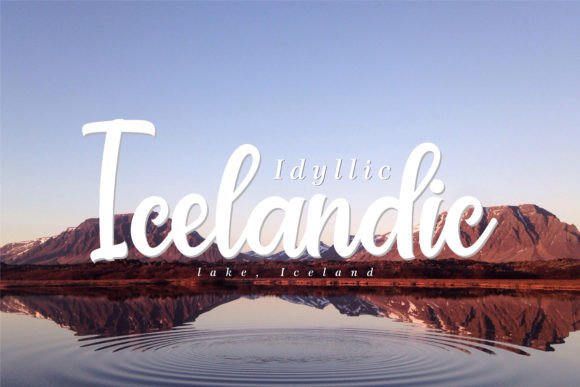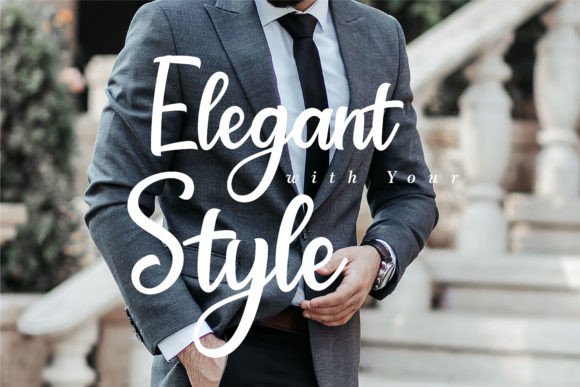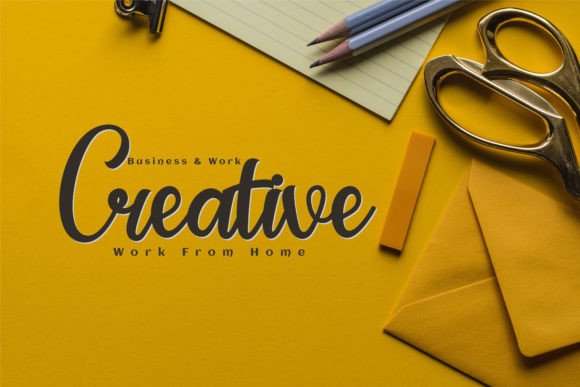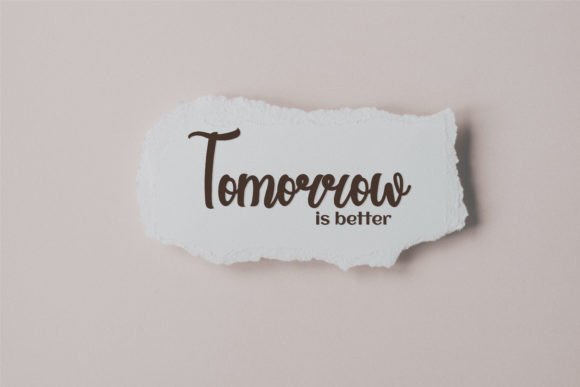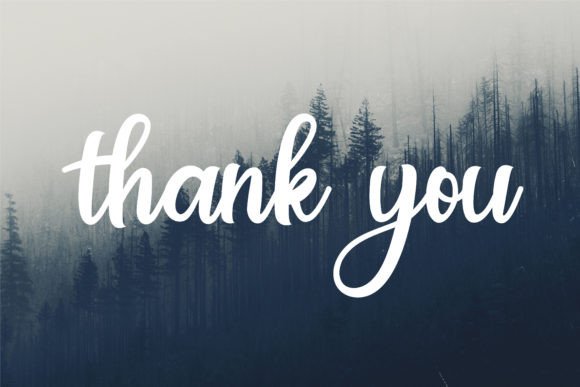
Introducing Essence Font: Elevate Your Designs with Elegance and Sophistication
Are you a designer or crafter looking for a font that can add a touch of elegance and sophistication to your projects? Look no further than Essence Font, a beautiful handwritten font that is perfect for a wide range of applications. In this article, we’ll explore the features and benefits of Essence Font, and show you how it can elevate your designs to the next level.
What is Essence Font?
Essence Font is a stunning handwritten font that is designed to make your designs stand out. Its unique and elegant style makes it perfect for use in a variety of projects, from wall displays and wedding invitations to social media posts and product packaging. With its flowing lines and delicate curves, Essence Font is sure to add a touch of sophistication and refinement to any design.
Features of Essence Font
So, what makes Essence Font so special? Here are just a few of its key features:
• Handwritten style: Essence Font is a genuine handwritten font, giving it a personal and unique touch that sets it apart from more traditional fonts.
• Elegant and sophisticated: With its flowing lines and delicate curves, Essence Font is the perfect choice for designers who want to add a touch of elegance and sophistication to their projects.
• Versatile: Essence Font can be used in a wide range of projects, from wall displays and wedding invitations to social media posts and product packaging.
• Easy to read: Despite its elegant style, Essence Font is still easy to read, making it perfect for use in body text as well as headings and titles.
Uses for Essence Font
So, what can you use Essence Font for? The possibilities are endless! Here are just a few ideas to get you started:
• Wall displays: Use Essence Font to create stunning wall displays that are sure to grab attention.
• Wedding invitations: Add a touch of elegance and sophistication to your wedding invitations with Essence Font.
• Social media posts: Use Essence Font to create eye-catching social media posts that will help your brand stand out.
• Logos: Create a unique and memorable logo for your brand with Essence Font.
• Advertisements: Use Essence Font to create eye-catching advertisements that will grab attention and drive results.
• Product packaging: Add a touch of elegance and sophistication to your product packaging with Essence Font.
• Product designs: Use Essence Font to create stunning product designs that will help your products stand out.
• Labels: Create beautiful labels with Essence Font that will add a touch of elegance to your products.
• Photography: Use Essence Font to create stunning watermarks that will protect your photos and add a touch of elegance.
• Invitations: Create beautiful invitations with Essence Font that will set the tone for your event.
• Stationery: Use Essence Font to create stunning stationery that will make your brand stand out.
Why Choose Essence Font?
So, why should you choose Essence Font for your next project? Here are just a few reasons:
• Unique and elegant style: Essence Font has a unique and elegant style that will set your designs apart from the rest.
• Versatile: Essence Font can be used in a wide range of projects, making it a great addition to any designer’s toolkit.
• High-quality: Essence Font is a high-quality font that is designed to deliver exceptional results.
Font Name Essence Font
Author Arief Indra Pratama
In conclusion, Essence Font is a beautiful handwritten font that is perfect for designers and crafters who want to add a touch of elegance and sophistication to their projects. With its unique and elegant style, versatility, and ease of use, Essence Font is a great choice for a wide range of applications. Whether you’re creating wall displays, wedding invitations, social media posts, or product packaging, Essence Font is sure to deliver exceptional results. So why wait? Download Essence Font today and start elevating your designs to the next level!